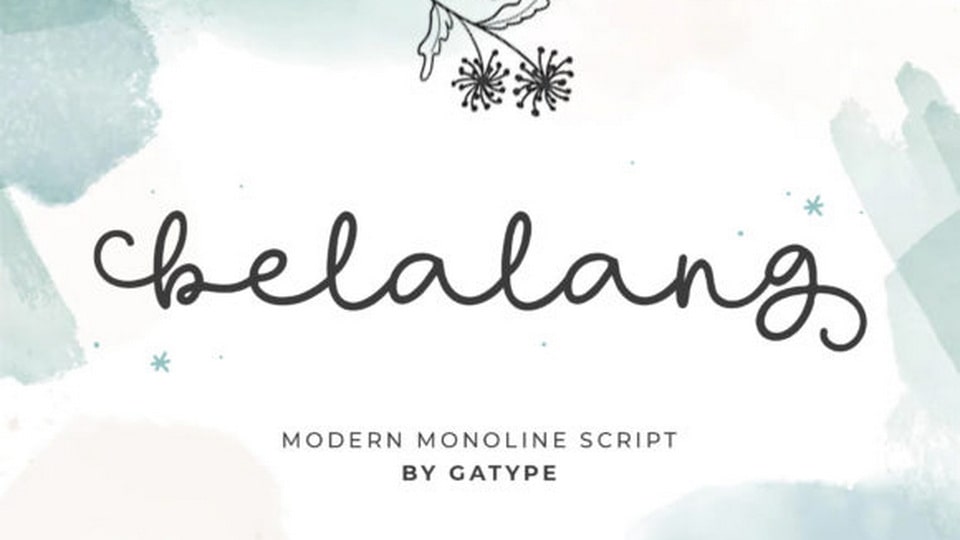
Download Belalang Script font, a beautiful monoline typeface. The goal with Belalang Script font was to create an easy-to-read script font that would work for various purposes.